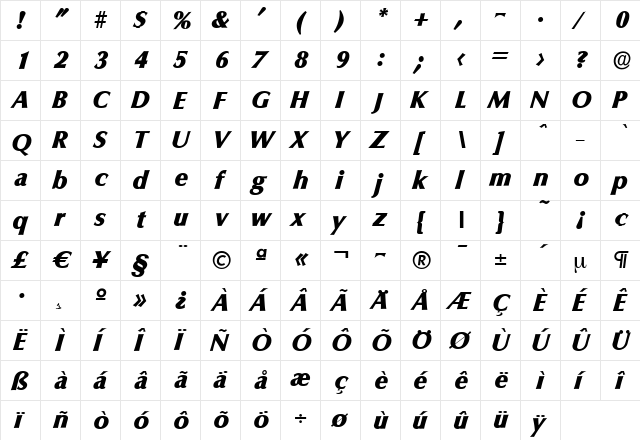
EricBecker-Heavy Italic
Design Context for EricBecker-Heavy Typeface
EricBecker-Heavy takes a measured approach to typography — its balanced proportions and neutral character make it a reliable workhorse for both digital and print work. The dynamic lean of this cut emphasises speed and emphasis in any layout.
Pro Tip: Use EricBecker-Heavy for emphasis, pull quotes, and subheadings where its slanted energy can add rhythm to the layout.